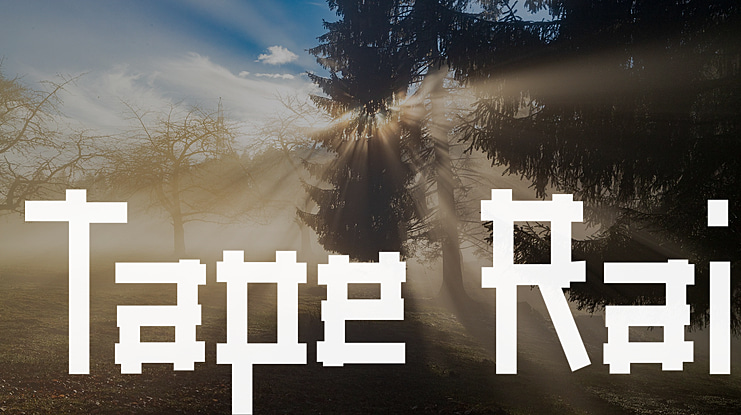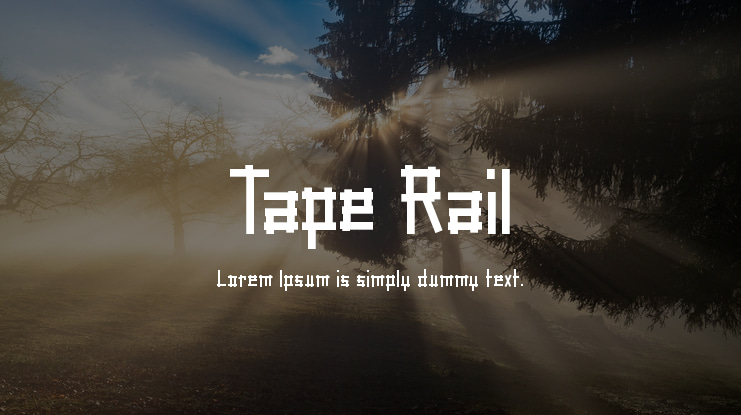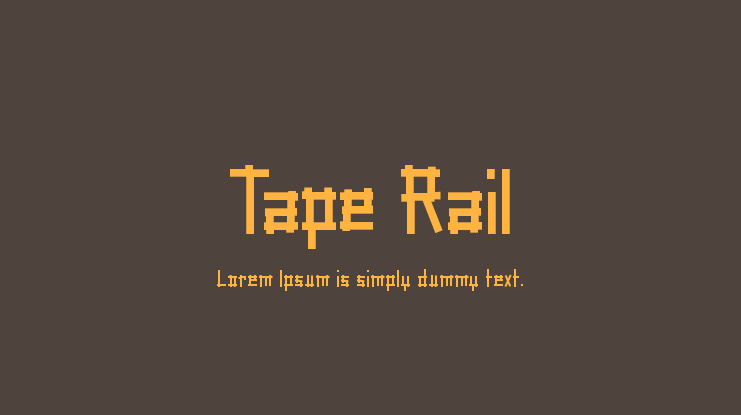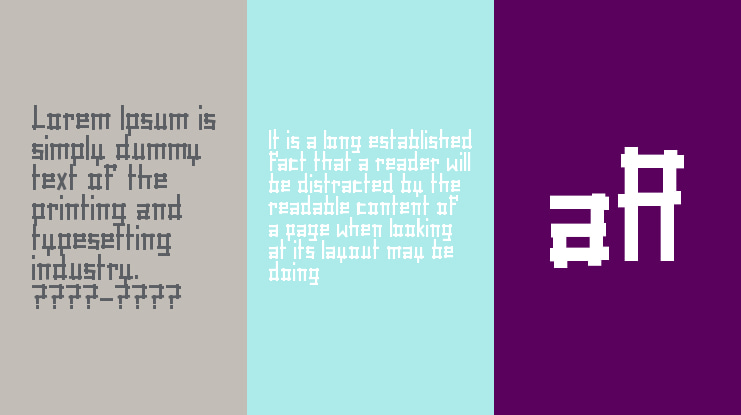
Tape Rail Font
Katiuscia Mari for monocromo
Tape Rail is a Display Decorative Font.
The designers had fun imagining the shapes of the upcoming tramway of Florence, represent it as a far west railroad with uneven wooden boards.
Get on the stagecoach and keep your Colt fully loaded.